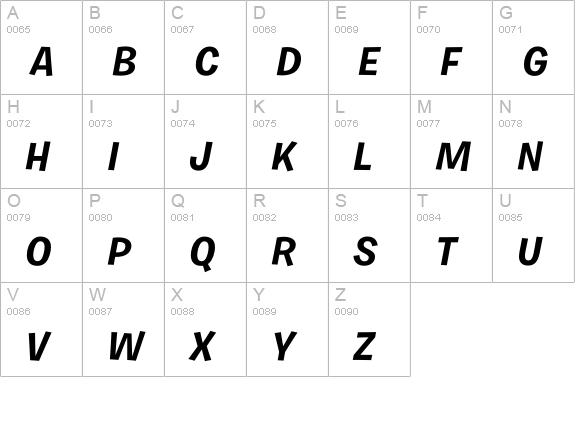
Burbank Small Bold Italic is a strong, high-contrast, italic variant in the Burbank typeface family \xE2\x80\x94 well suited to headlines, attention-grabbing titles, and strong calls-to-action.
Burbank Small Bold Italic font is a stylish and modern typeface that exudes sophistication and elegance. Its bold and italic design adds a touch of flair to any project, making it perfect for branding, advertising, and creative designs. The sleek and contemporary look of this font is sure to make a lasting impression on your audience. And the best part? Burbank Small Bold Italic font is available for free download at FontsMarket.com. With just a few clicks, you can add this versatile and eye-catching font to your collection, allowing you to elevate your designs without breaking the bank. Don't miss out on the opportunity to enhance your projects with this stunning font – download Burbank Small Bold Italic today!